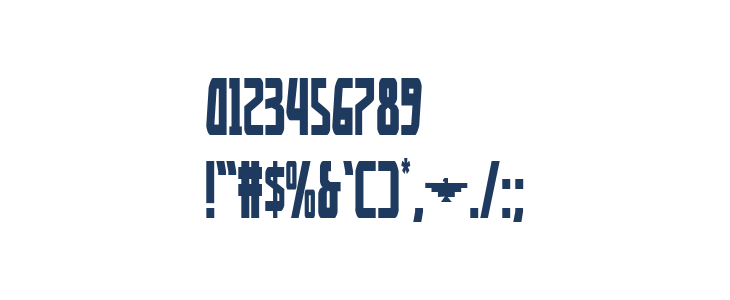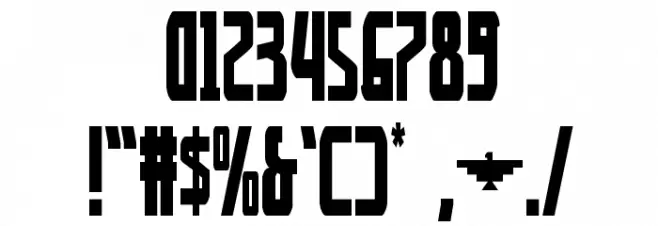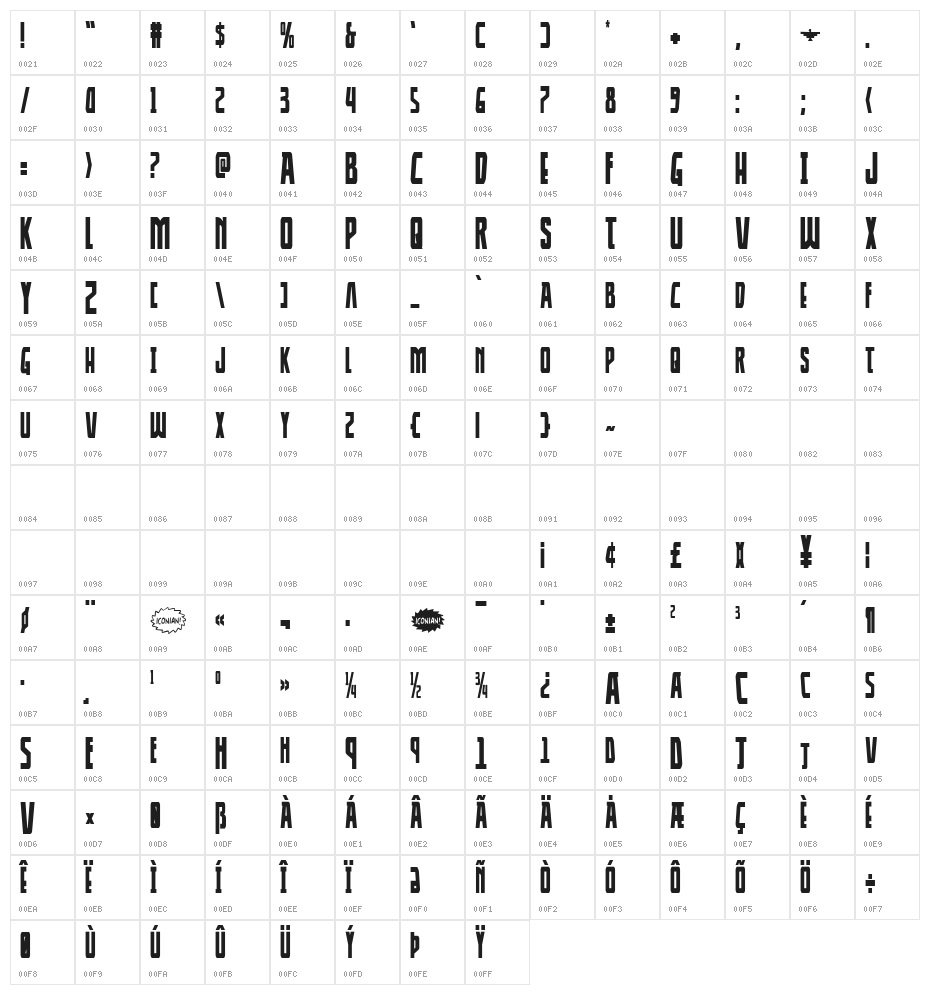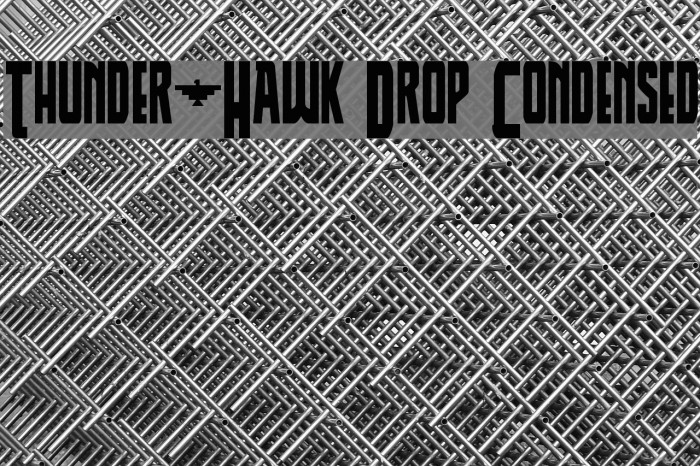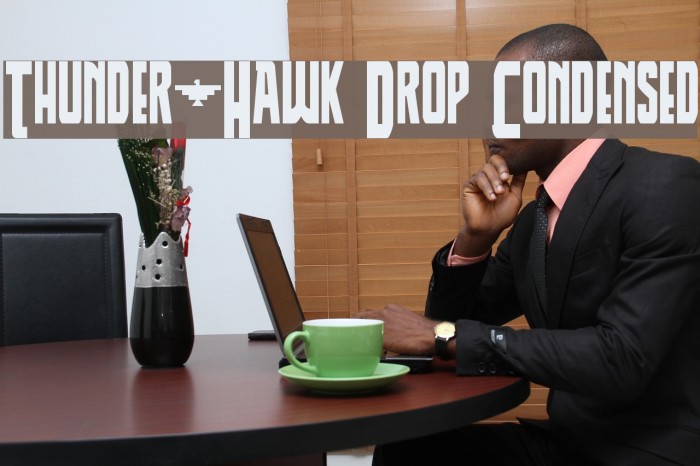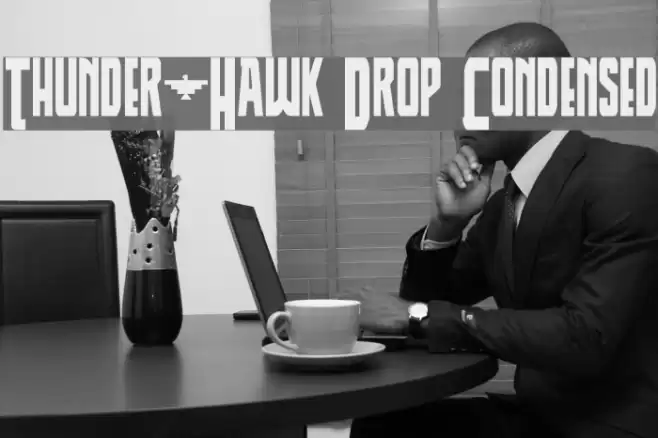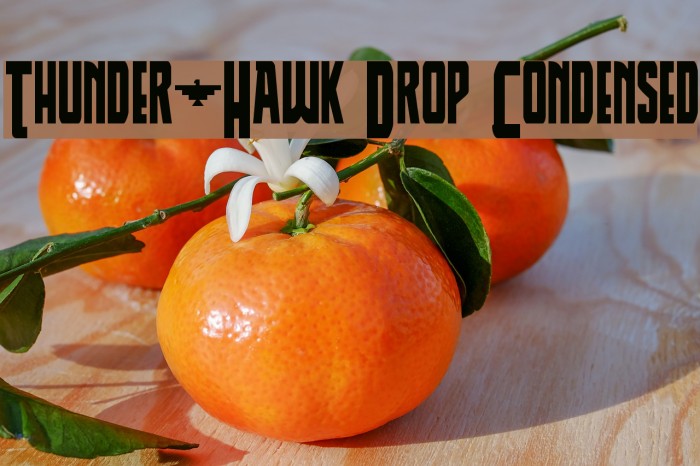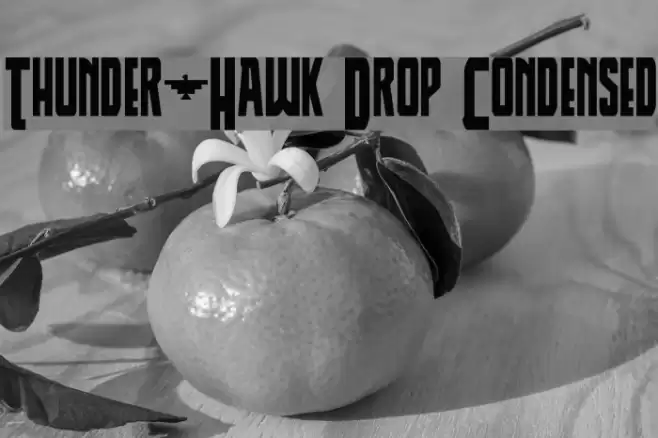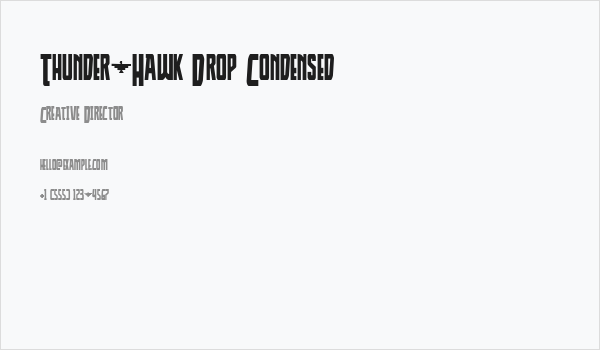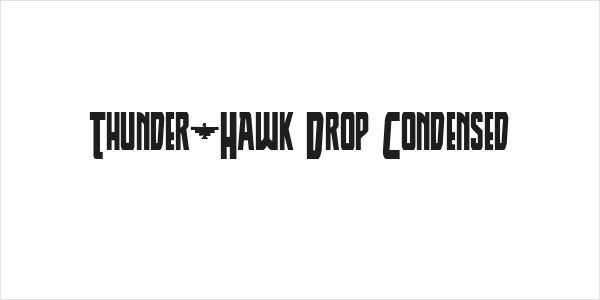
Thunder-Hawk Drop Condensed Font
Thunder-Hawk Drop Condensed Description
This font features a bold, condensed style with a strong geometric influence. The characters are tall and narrow, creating a striking and impactful appearance. The uppercase letters are particularly prominent, with sharp angles and clean lines that convey a sense of strength and modernity. The numbers and special characters maintain this bold aesthetic, ensuring consistency across all glyphs. This font's design is ideal for making a statement, with its high contrast and distinctive form.